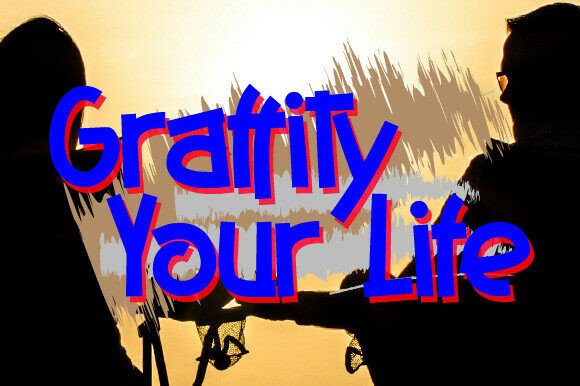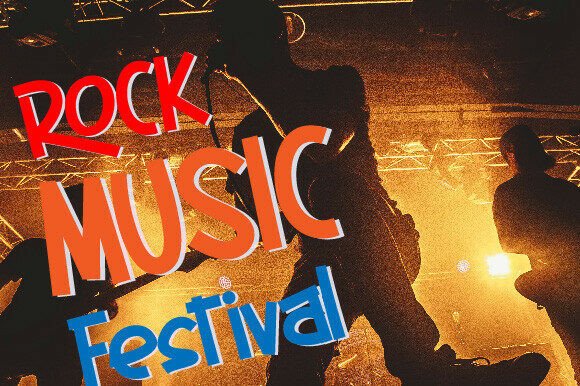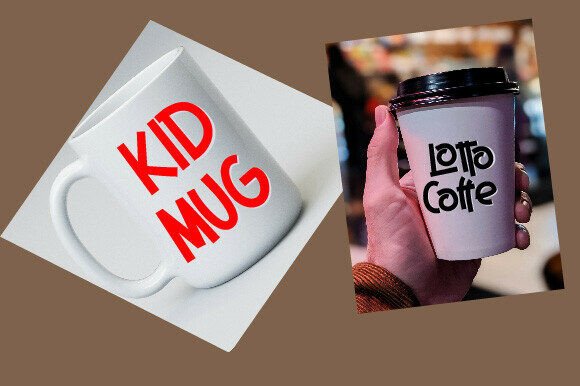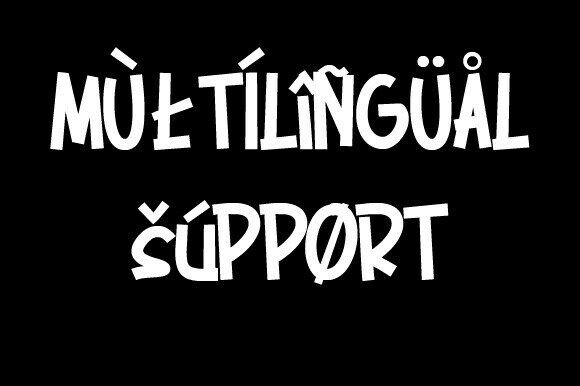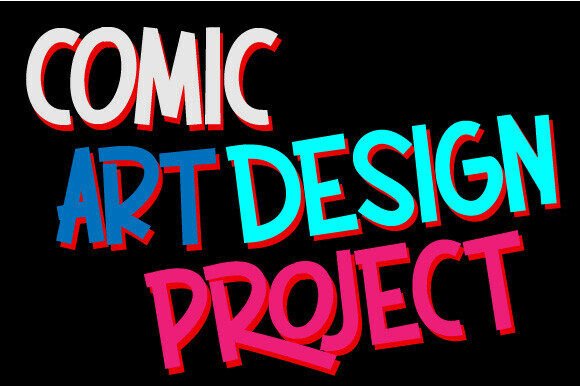
Unleash Your Creativity with Broocks Font: The Ultimate Display Font for Bold Designs
In the world of typography, fonts play a crucial role in conveying the tone and personality of a design. For designers and crafters looking to make a statement, Broocks Font is an exciting and bold display font that is sure to grab attention. With its dynamic presence, chunky uppercase forms, and graffiti-inspired feel, Broocks is the perfect choice for creating visually striking posters, album covers, branding, and more.
The Unique Features of Broocks Font
Broocks Font boasts a range of distinctive features that set it apart from other display fonts. Its chunky uppercase forms are amplified by sharp angles and exaggerated ligatures, giving it a street-art-meets-modern-design personality. The font’s custom ligature tail, which sweeps beneath the text, adds movement and flair, creating a sense of energy and dynamism. This standout feature is what gives Broocks its unique character and makes it perfect for designs that require a bold and playful touch.
The Inspiration Behind Broocks Font
Broocks Font draws inspiration from the world of graffiti and street art, where boldness and attitude are key. The font’s designers aimed to capture the essence of this art form and translate it into a digital font that would be both expressive and functional. The result is a font that brings creative chaos into balance with legibility and visual rhythm, making it perfect for a wide range of design applications.
Perfect for Bold Designs
Broocks Font is designed to make a statement, making it perfect for designs that require a bold and attention-grabbing font. Its playful structure and graffiti-inspired feel make it ideal for:
- Posters: Create eye-catching posters that demand attention with Broocks Font.
- Album Covers: Give your music a bold and edgy look with Broocks Font.
- Branding: Add a touch of personality to your brand with this unique and expressive font.
- Any visual where boldness and attitude are key: From advertising to packaging, Broocks Font is the perfect choice for any design that requires a bold and playful touch.
What Makes Broocks Font Stand Out
So, what sets Broocks Font apart from other display fonts? Here are a few key features that make it a standout choice:
- Chunky Uppercase Forms: Broocks Font features chunky uppercase forms that are perfect for creating bold and attention-grabbing designs.
- Sharp Angles and Exaggerated Ligatures: The font’s sharp angles and exaggerated ligatures give it a street-art-meets-modern-design personality.
- Custom Ligature Tail: The custom ligature tail that sweeps beneath the text adds movement and flair, creating a sense of energy and dynamism.
- Graffiti-Inspired Feel: Broocks Font draws inspiration from the world of graffiti and street art, making it perfect for designs that require a bold and playful touch.
In conclusion, Broocks Font is a bold and energetic display font that is perfect for designers and crafters looking to make a statement. With its unique features, graffiti-inspired feel, and playful structure, Broocks is the perfect choice for creating visually striking designs that demand attention. Whether you’re creating posters, album covers, branding, or any other visual that requires a bold and playful touch, Broocks Font is the ultimate display font for your design needs.